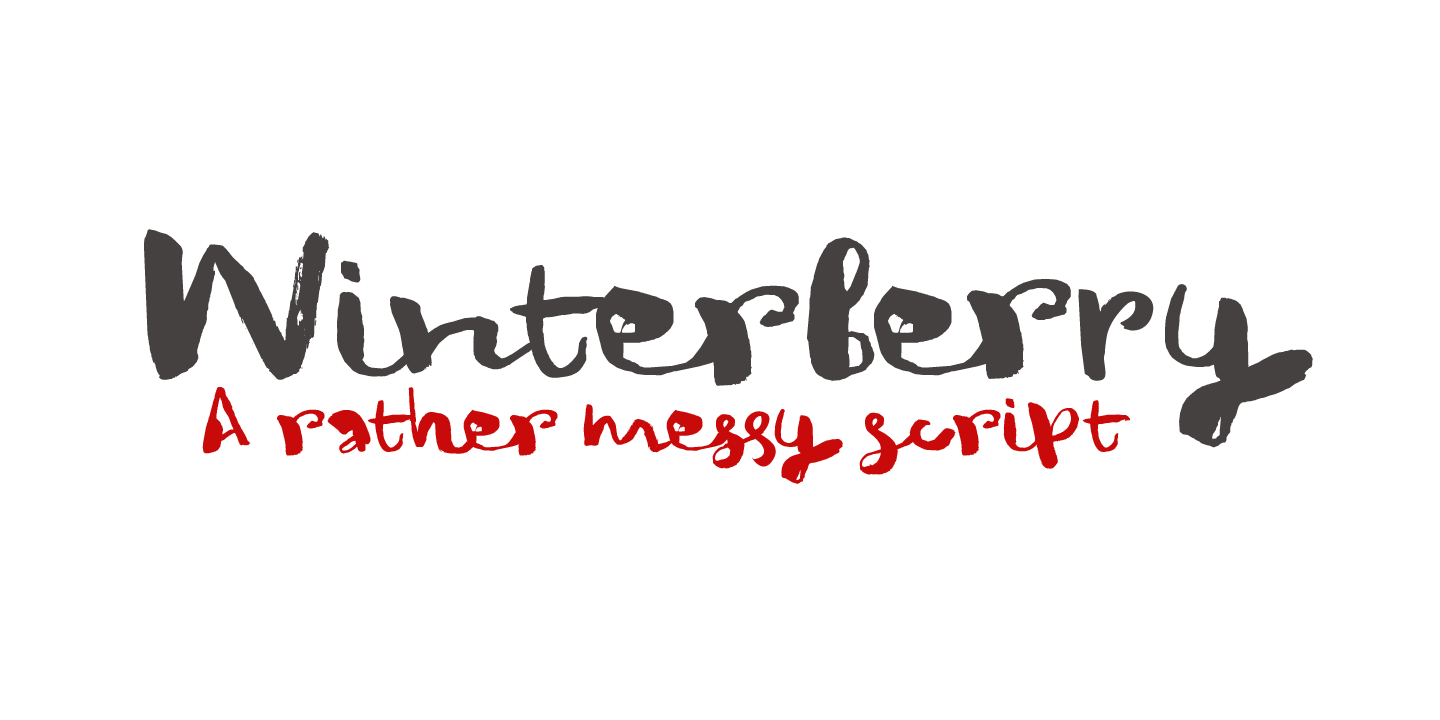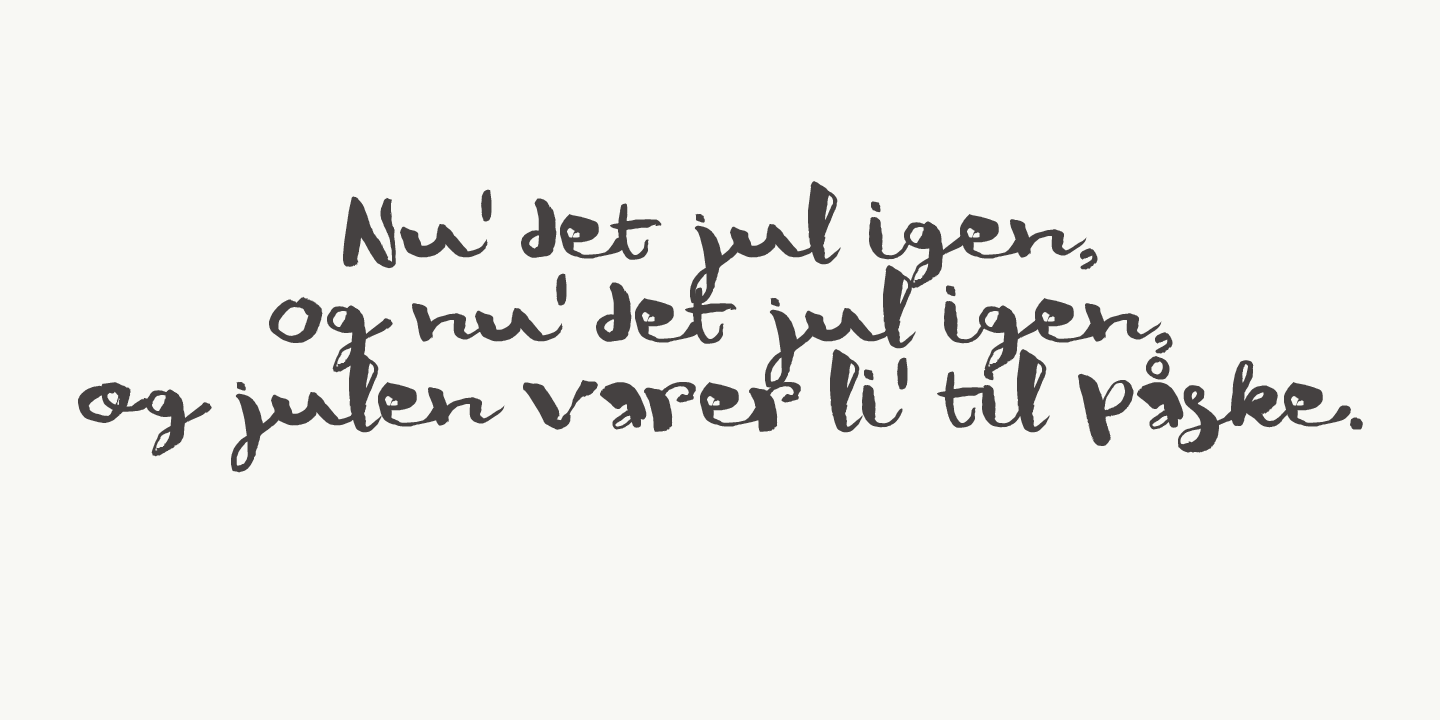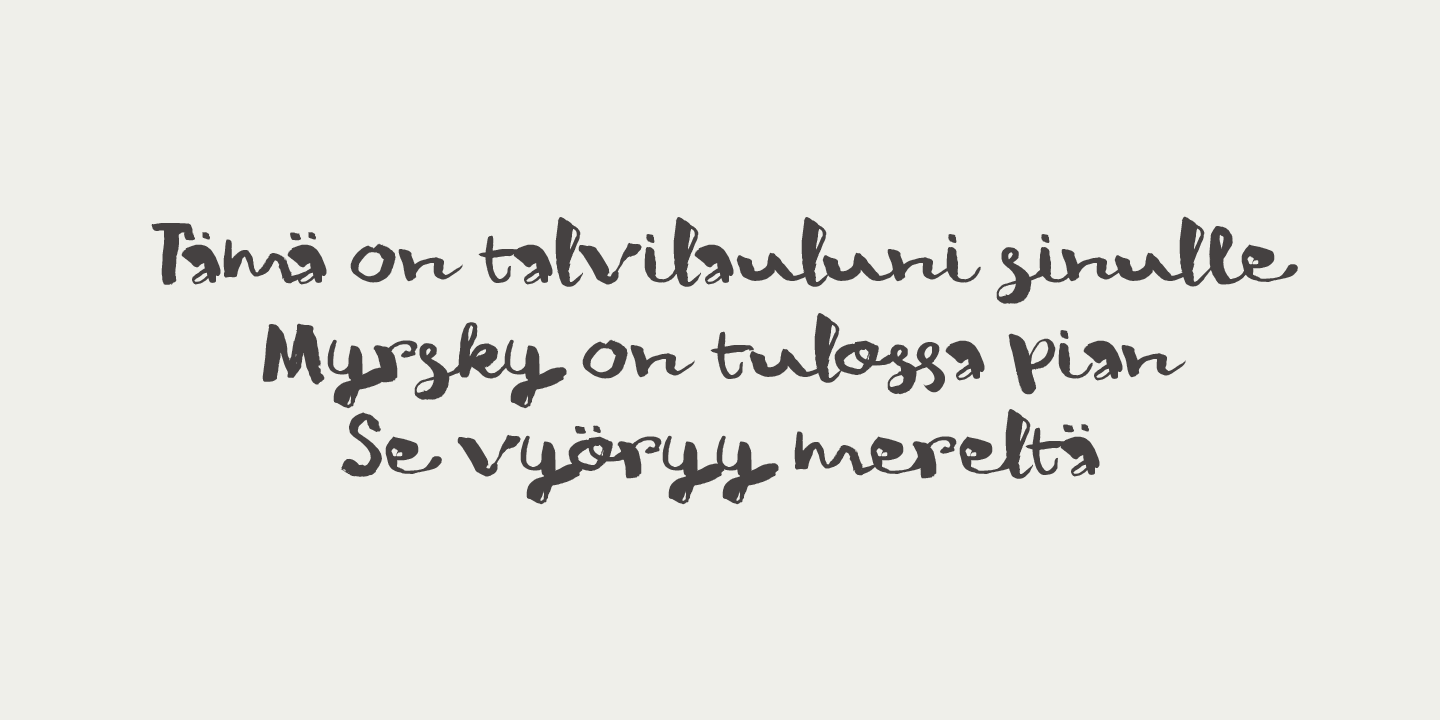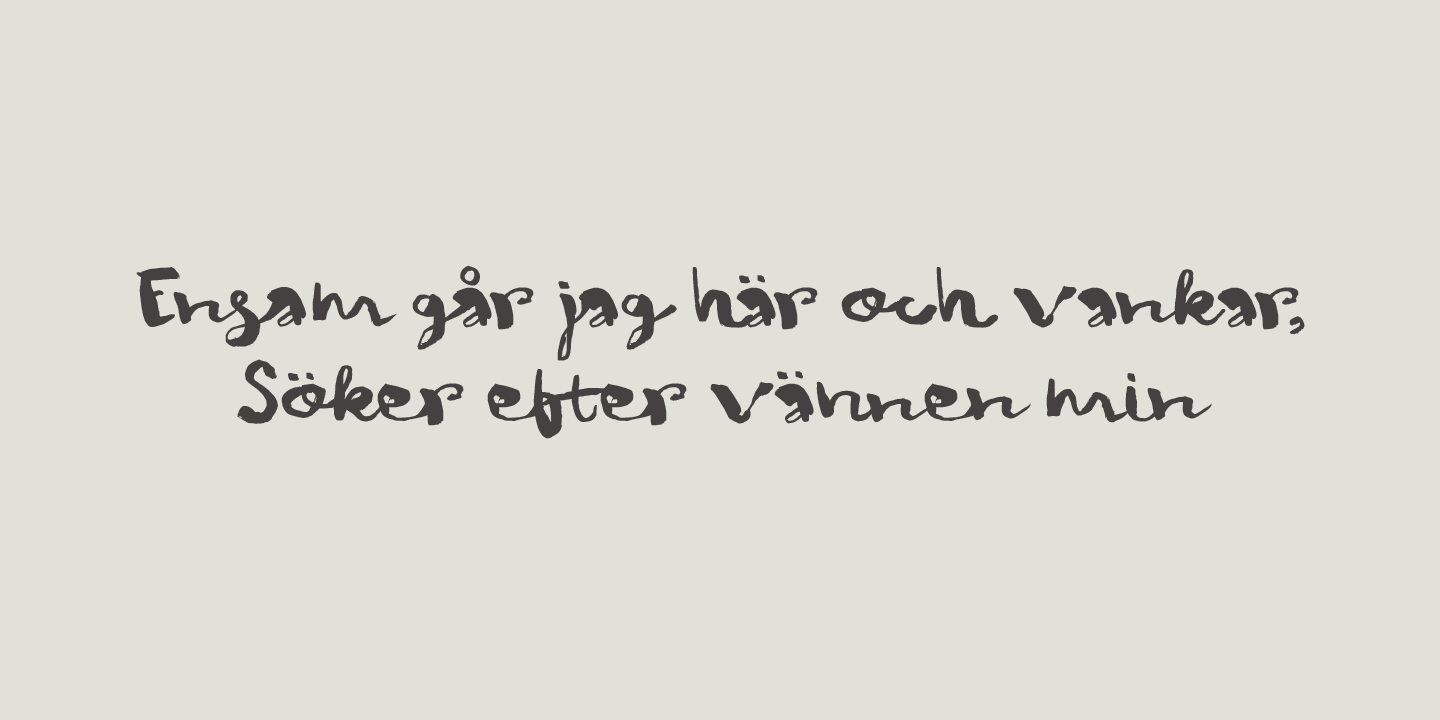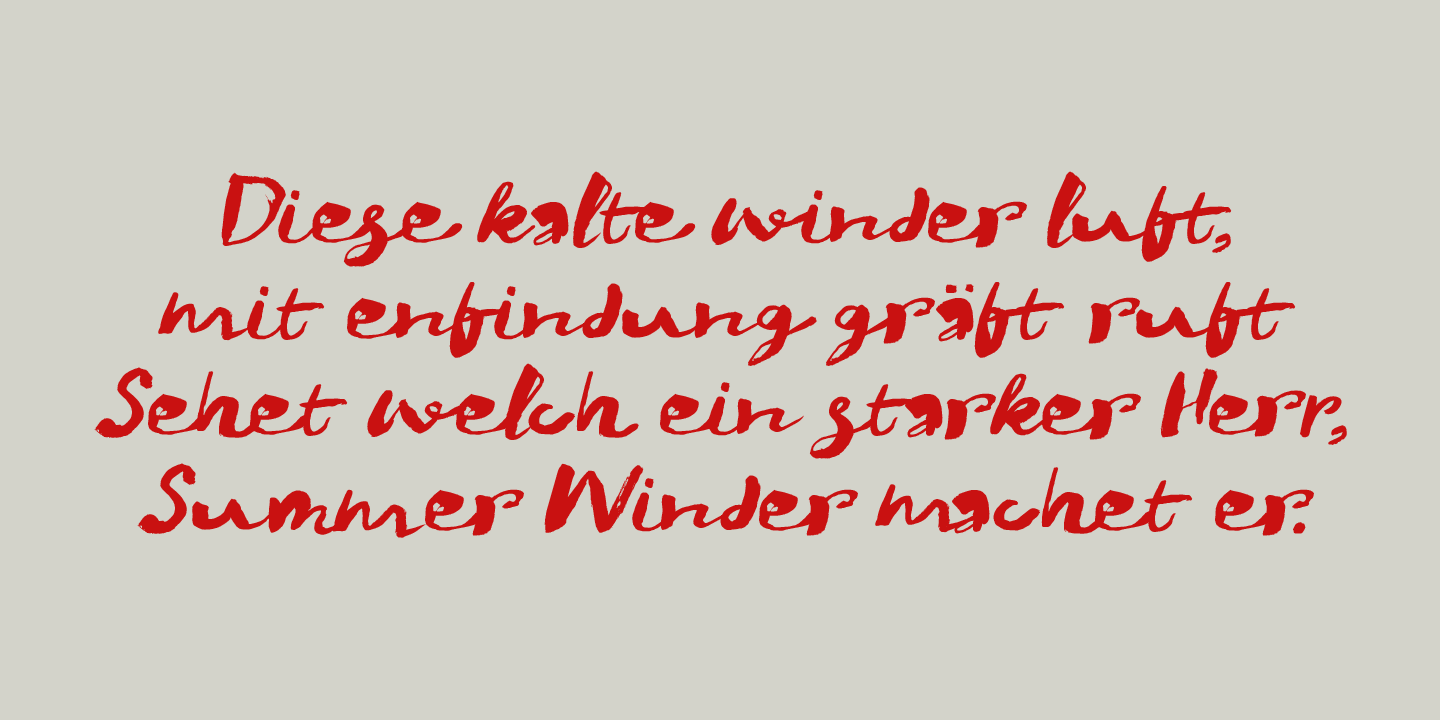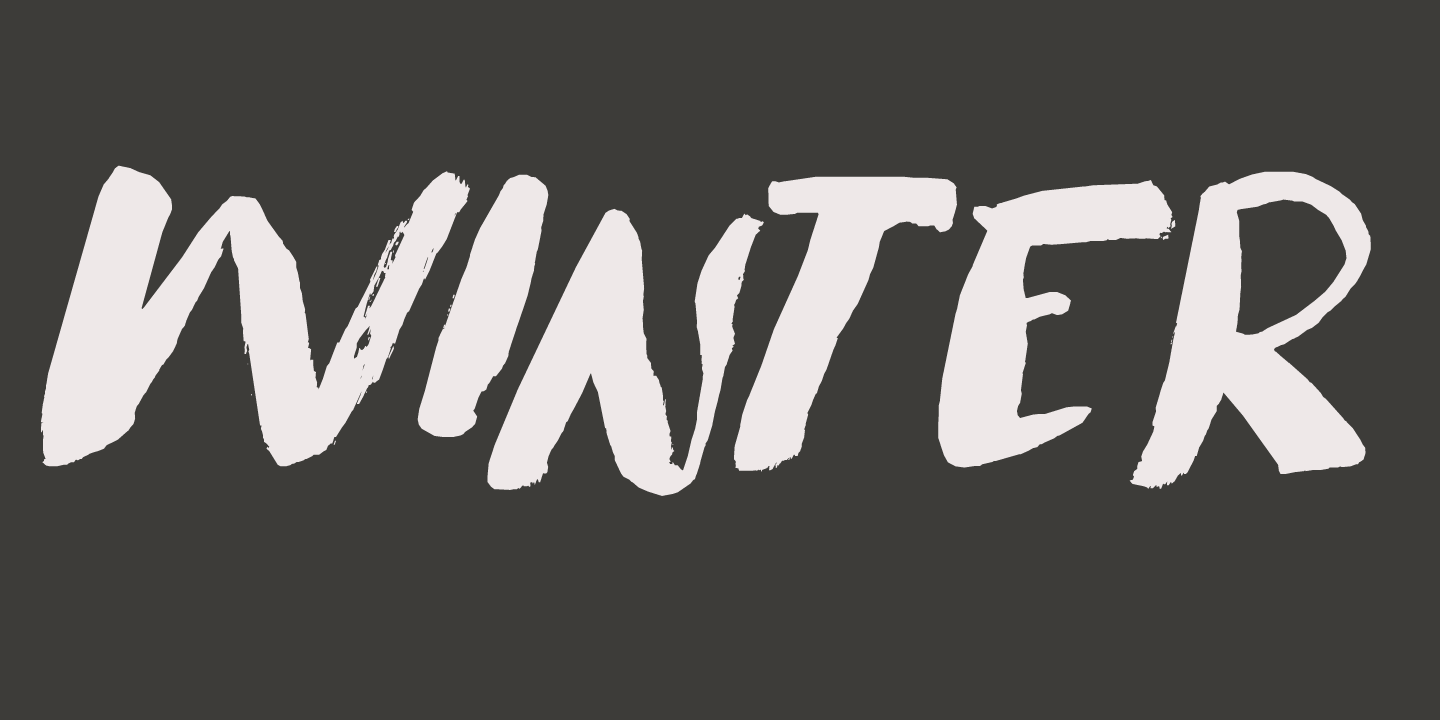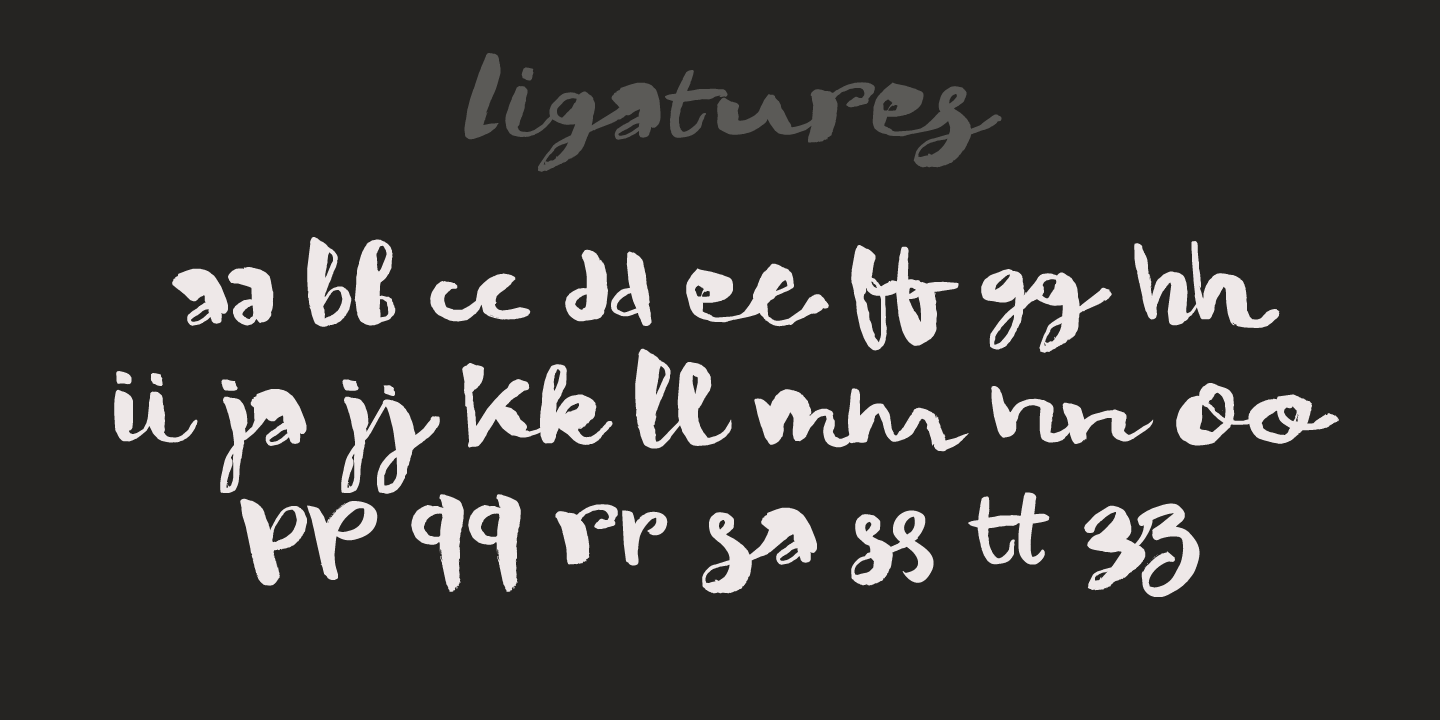
Winterberry Family (2 fonts)
Winterberry was created using Chinese ink and a crappy brush - hence its messy appearance. Use Winterberry on your alt-Christmas invitations, your fantasy novels, your rock albums or your website! You’ll love it! Comes with a bunch of diacritics and some ripe double letter ligatures as well.